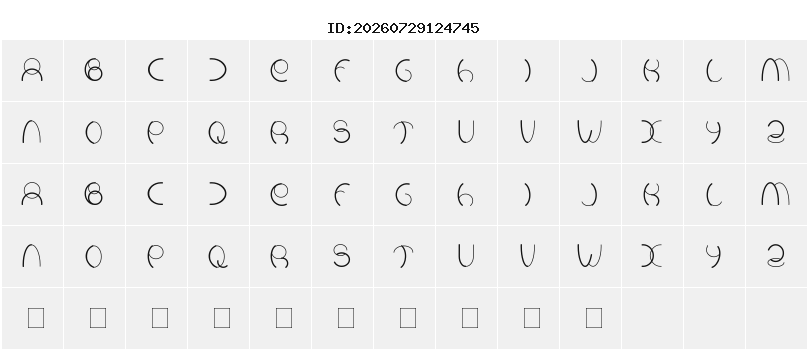
Kszywometrja Preview
• Font Name: Kszywometrja
• Font Style: Normalny
• Full Font Name: Kszywometrja
• PostScript Name: Kszywometrja
About Kszywometrja.ttf
Kszywometrja.ttf is a modern, elegant sans-serif font designed for ultimate readability and visual harmony. Perfect for branding, headlines, web design, and print materials.